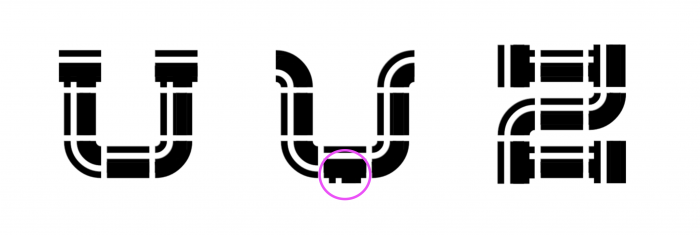
Super Mario pipe system FTW!!!
Another surprising proposal with your unmatched style! The shading seems fine. I point out a brick that I think is wrong in the "v"... and I add (ahem, ahem) 🤦‍♂️ a new proposal for the "z".
@Sed4tives Well spotted :)
Just noticed that I used only 5 bricks for this... Which means it's gonna be easier to expand.